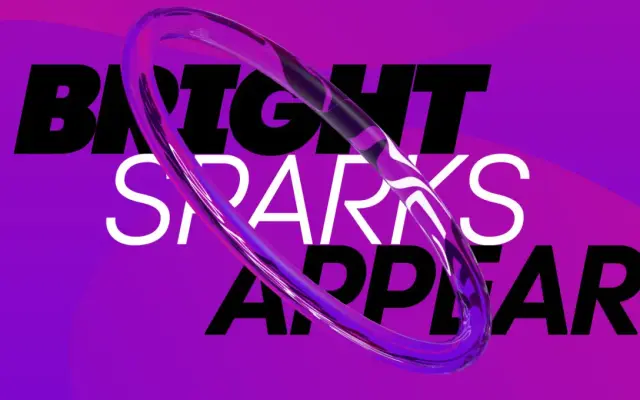
Code Next
Fontfabric · Svetoslav Simov, Mirela Belova, Stan Partalev · 2021
A geometric sans from Fontfabric evolved from their Code Pro family, offering ten weights with italics and two variable fonts across Latin, Cyrillic and Greek.
Released in March 2021 as a successor to Code Pro, it was drawn by Svetoslav Simov, Mirela Belova and Stan Partalev. Twenty static styles plus two variable fonts cover a wide weight range from Hairline to Black, with an extensive OpenType feature set including small caps, old-style figures and stylistic alternates. Broad multi-script support across Extended Latin, Cyrillic and Greek makes it a workable choice for international branding and UI projects.
Clean, simplified geometric forms with a modern character, explicitly positioned as a geometric sans in the tradition of Futura and Avenir, with multi-script support and variable font axes.